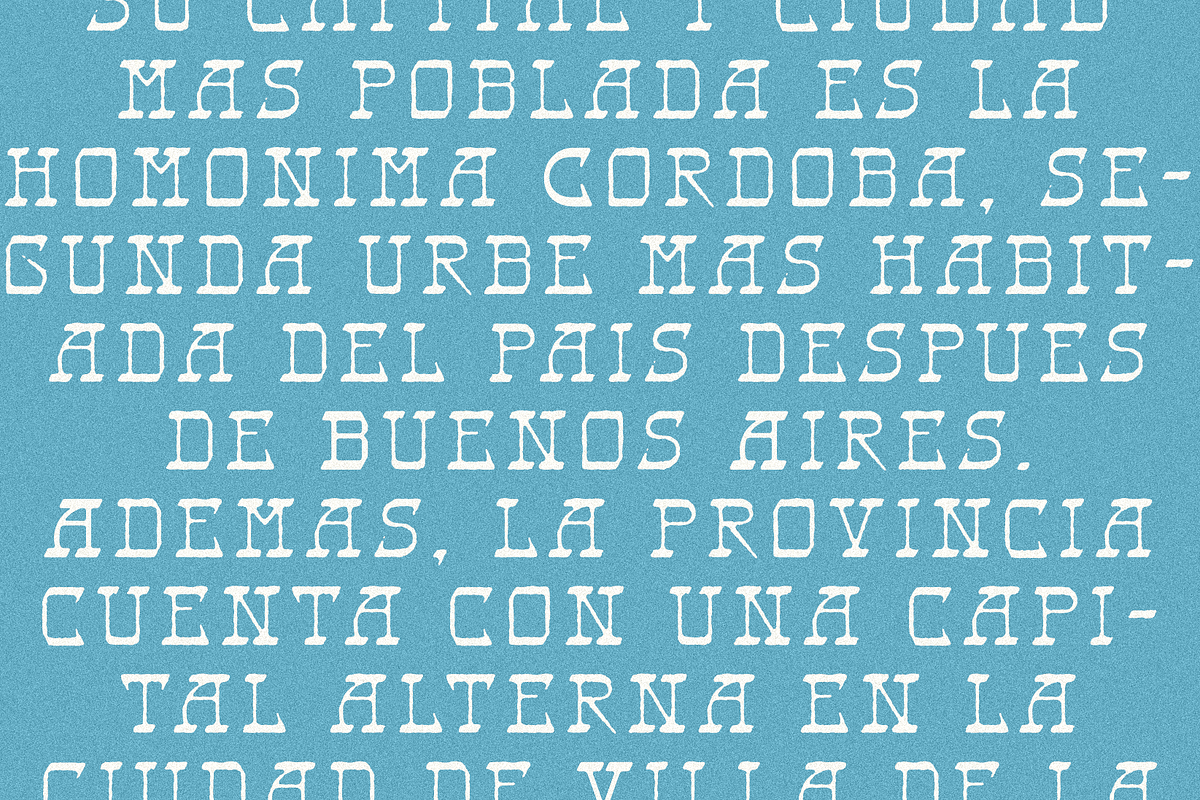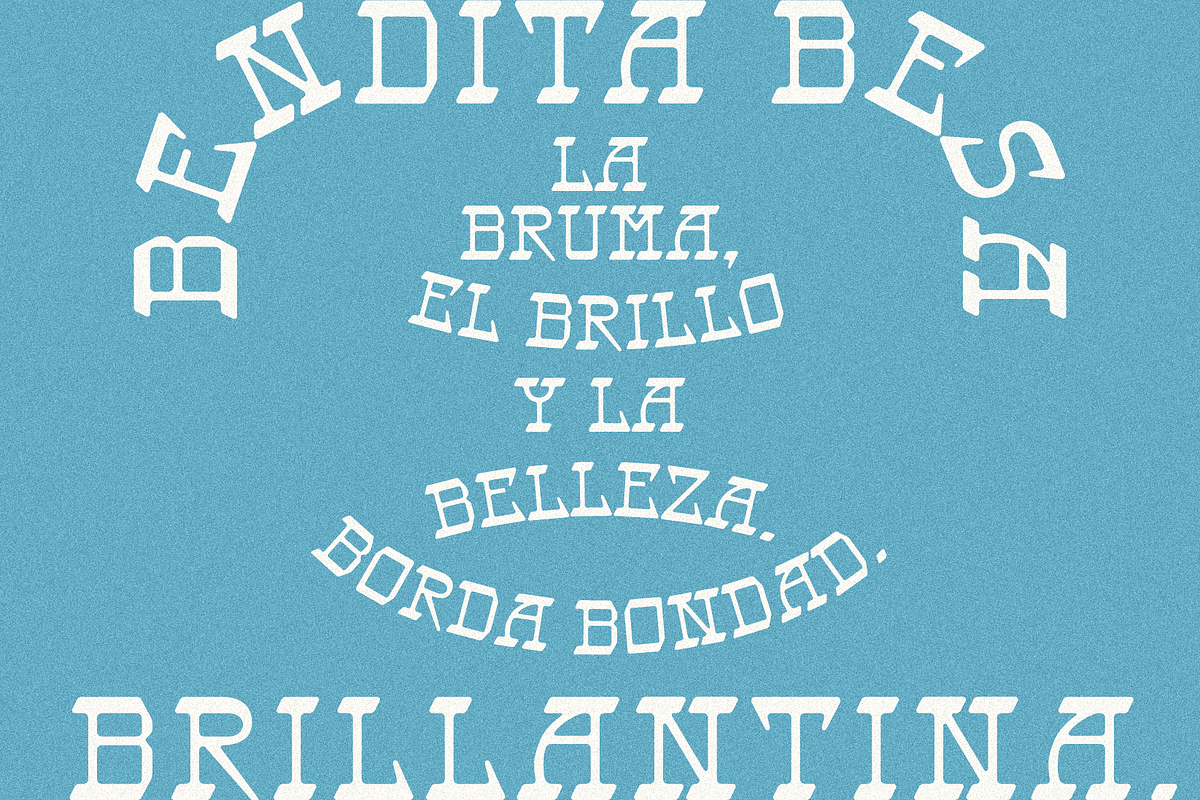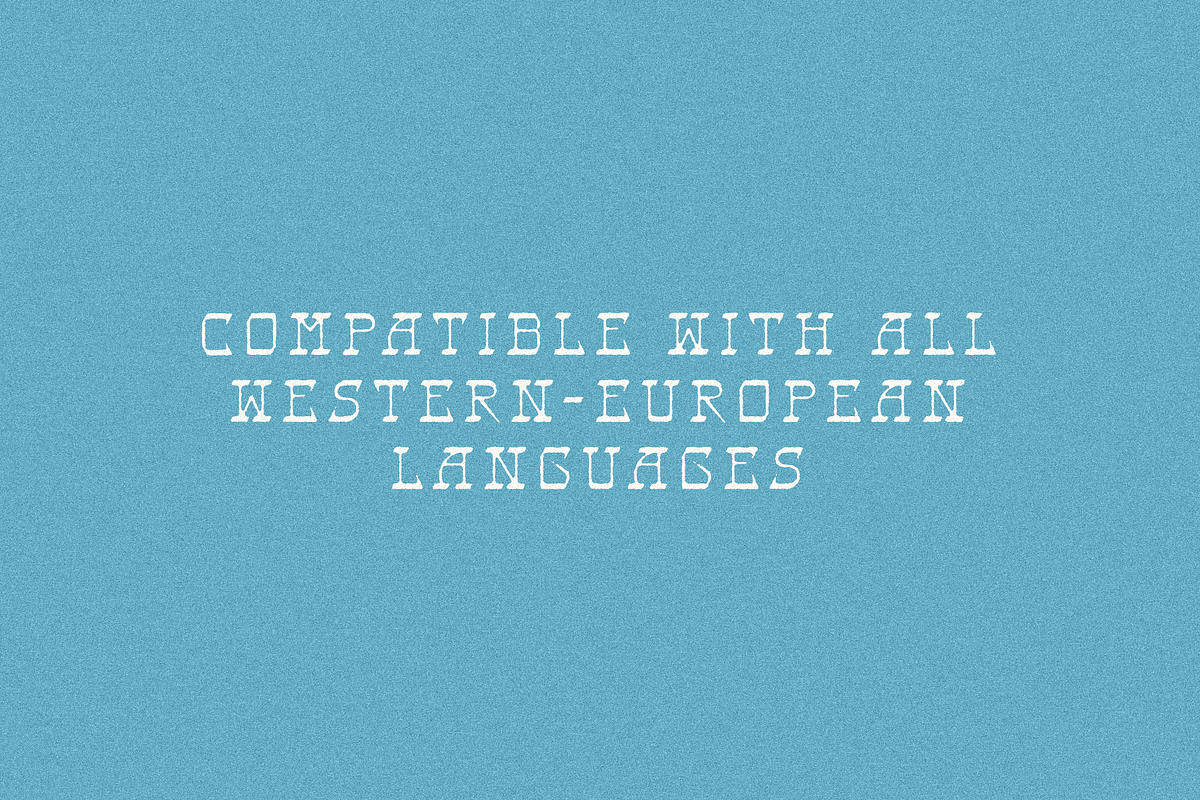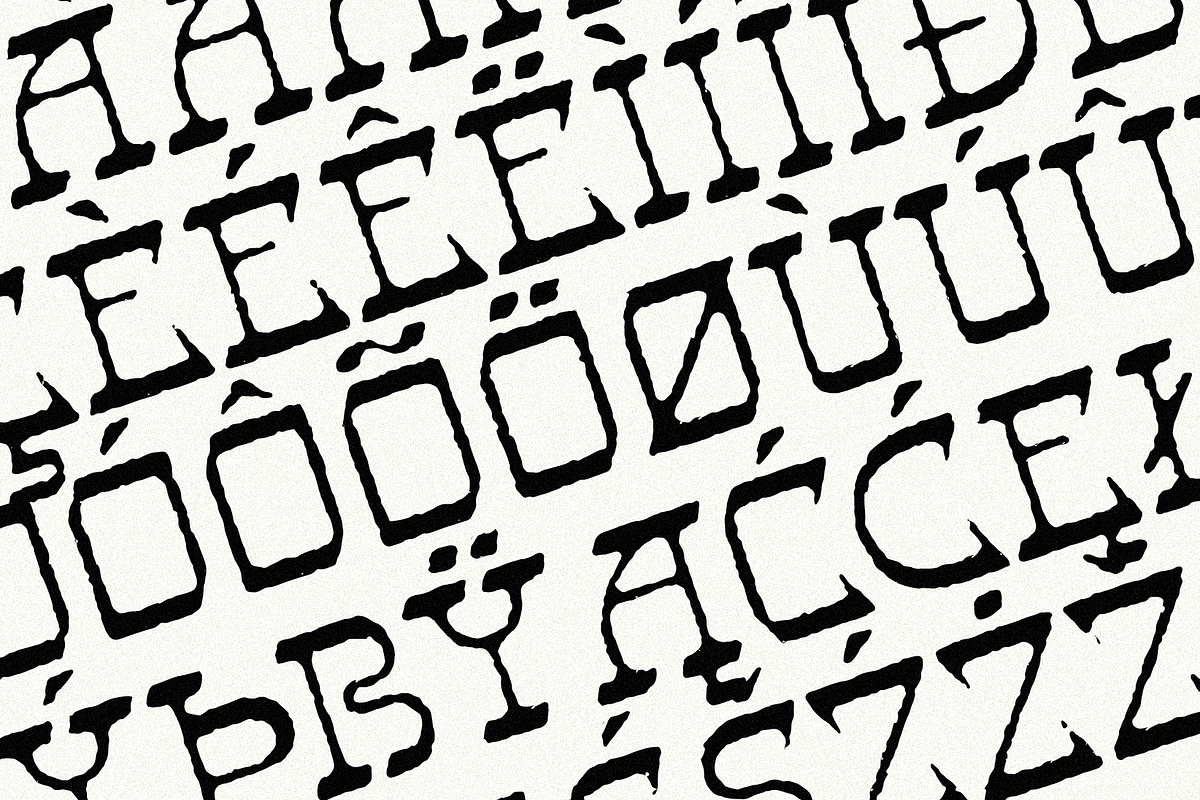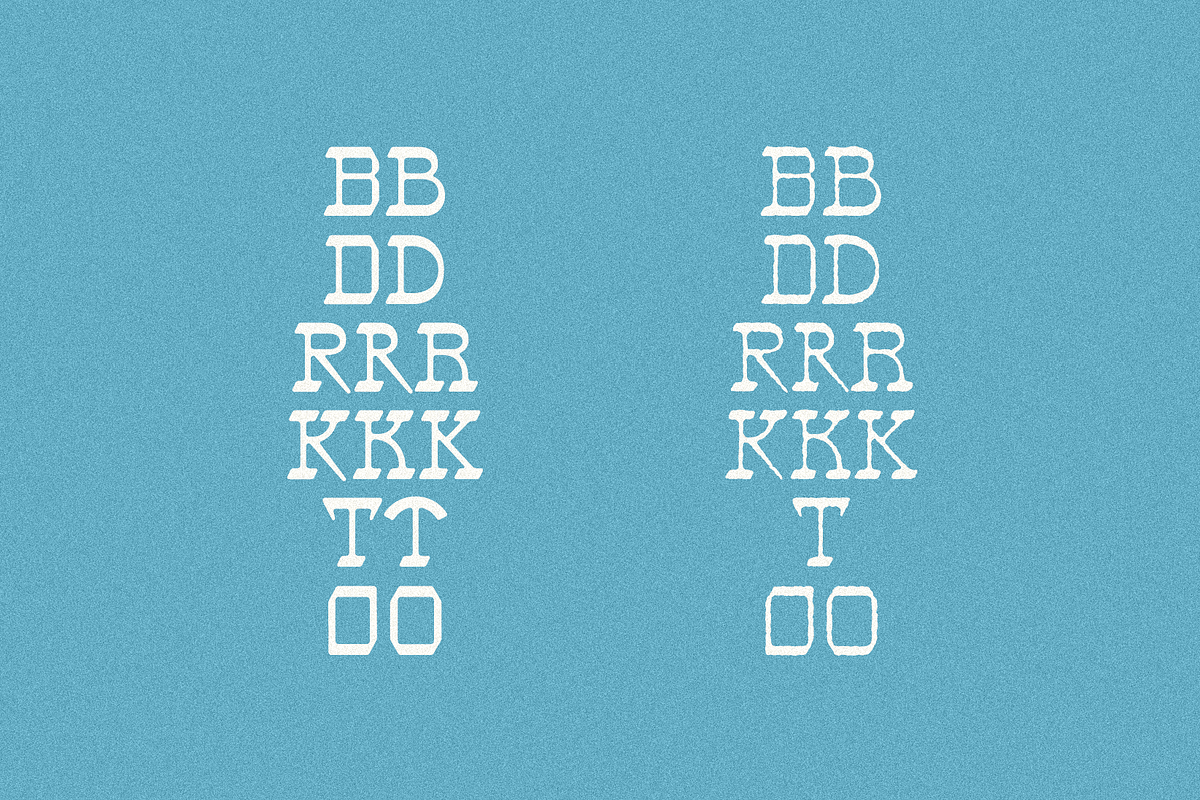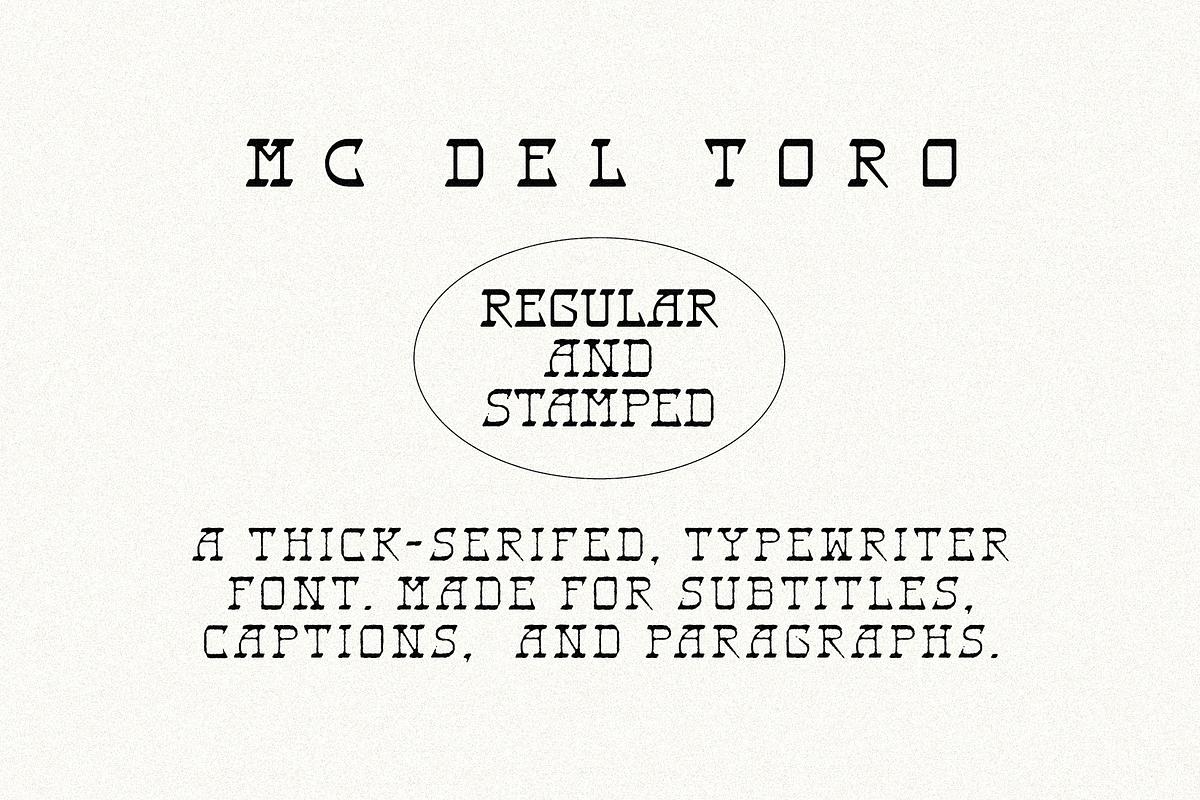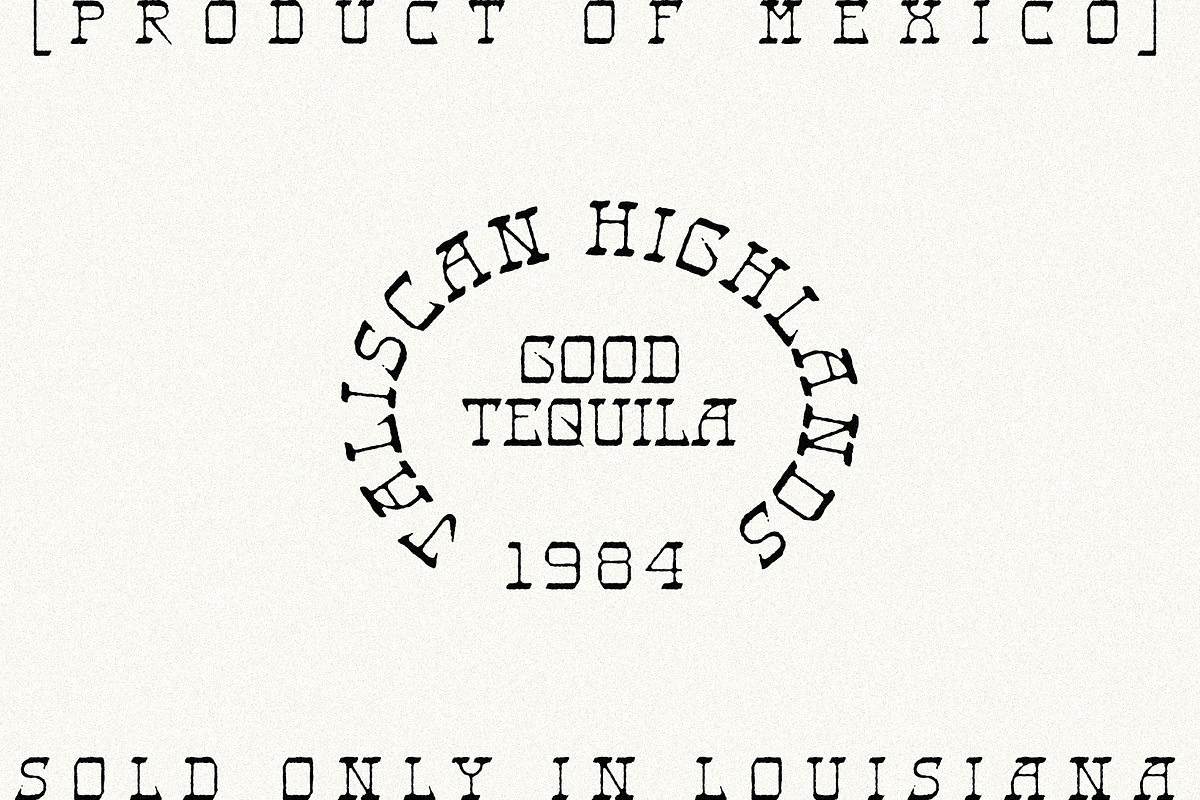
MC Del Toro - Regular and Stamped
A hand-crafted font, MC Del Toro is perfect for adding a bit of rustic flair to any design project! Compatible with all Western-European languages.